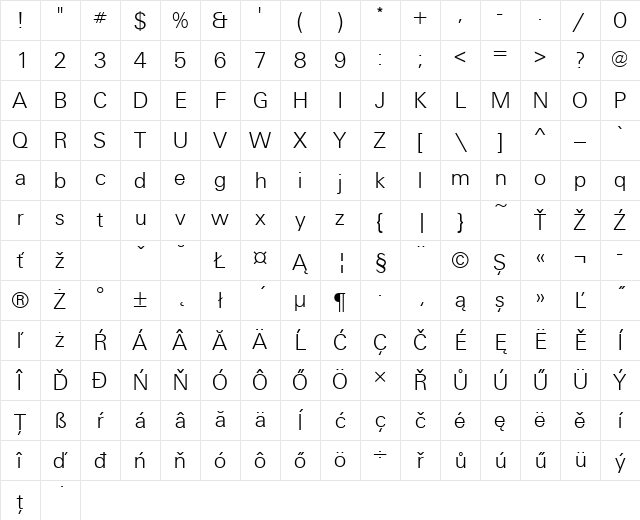
UnitusDEELig Regular
UnitusDEELig Family
UnitusDEELig Regular
Design Context for UnitusDEELig
UnitusDEELig is a composed and adaptable typeface that performs quietly and consistently across a wide range of design contexts.